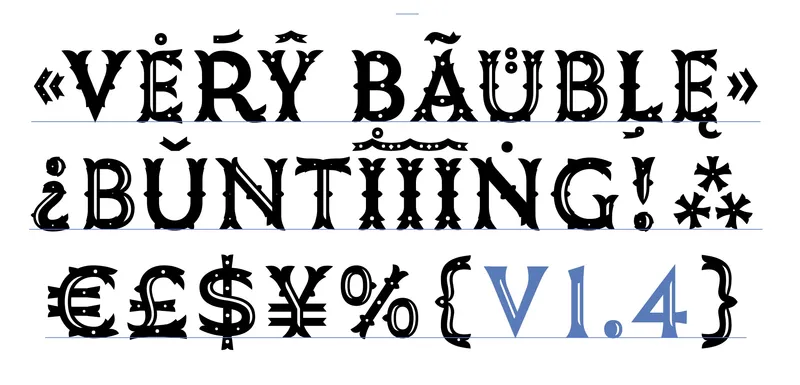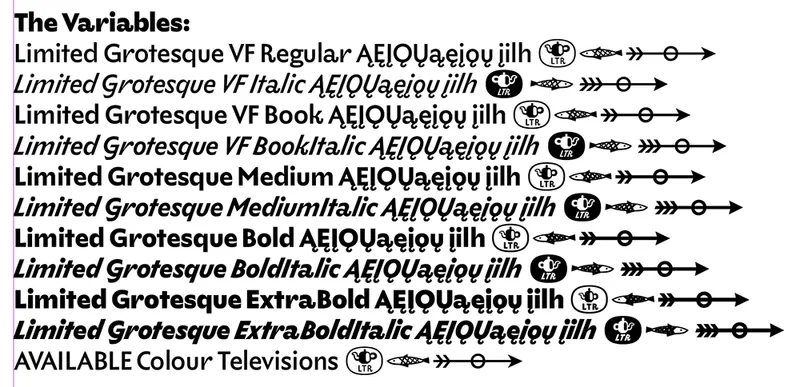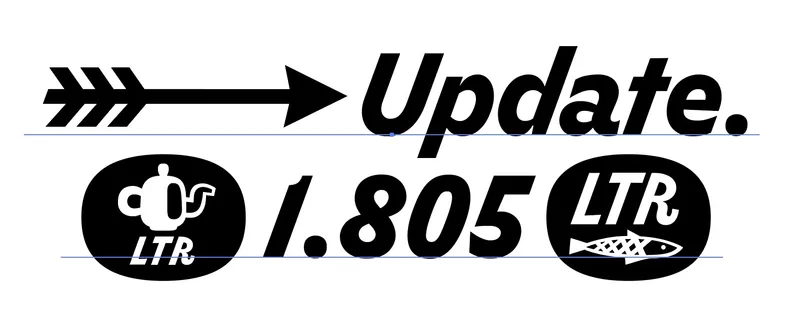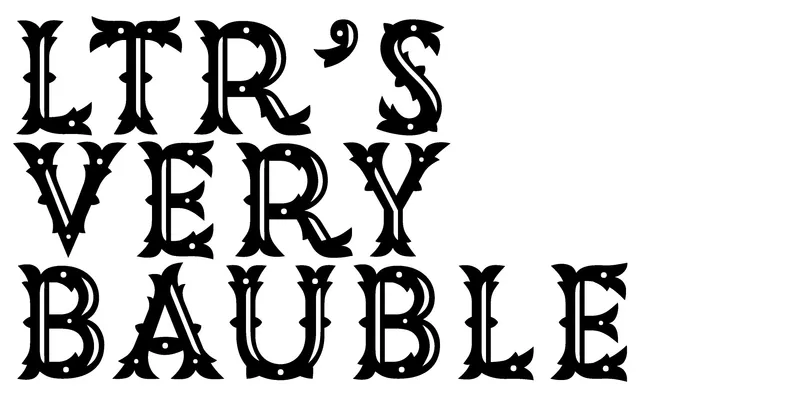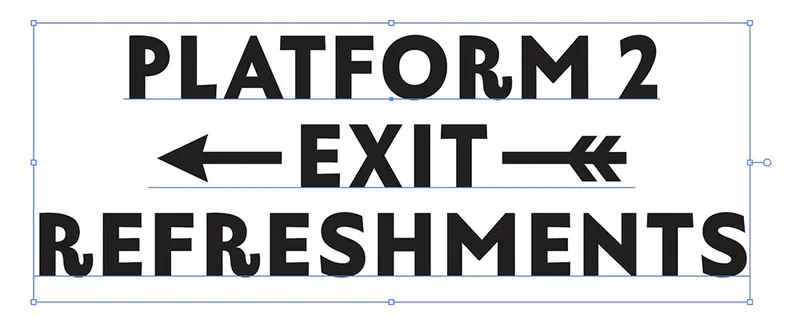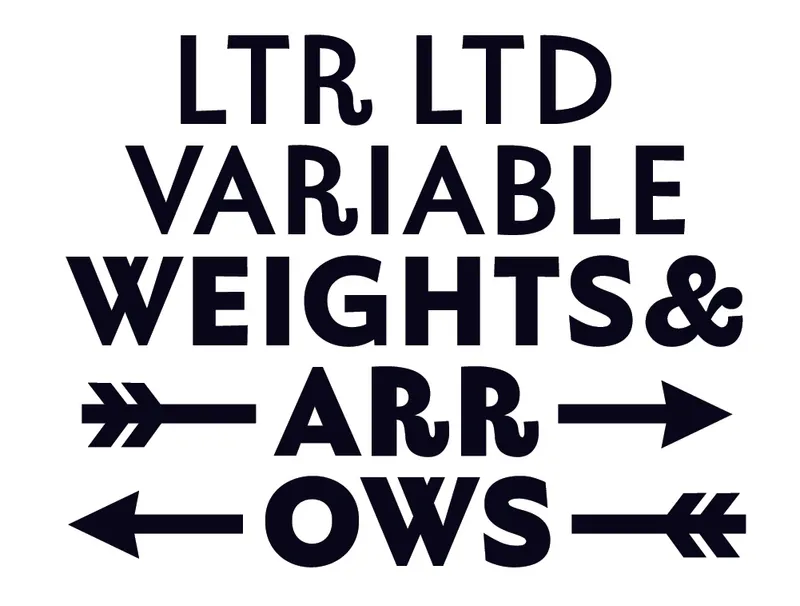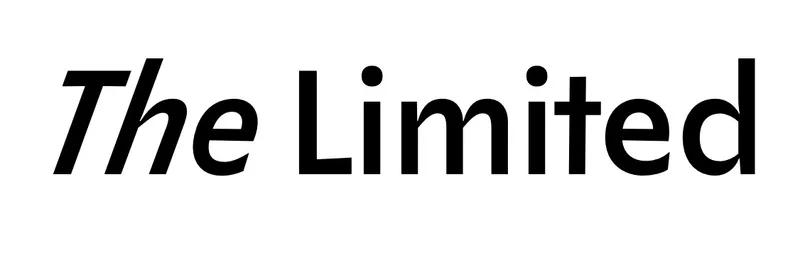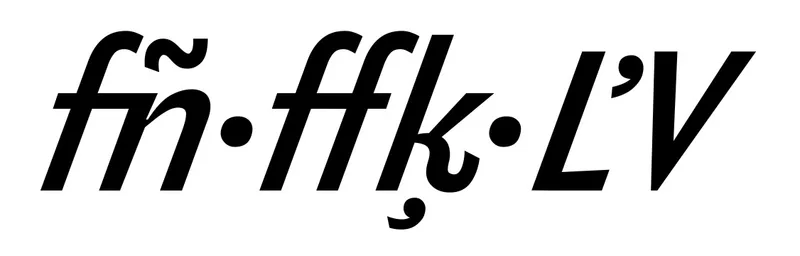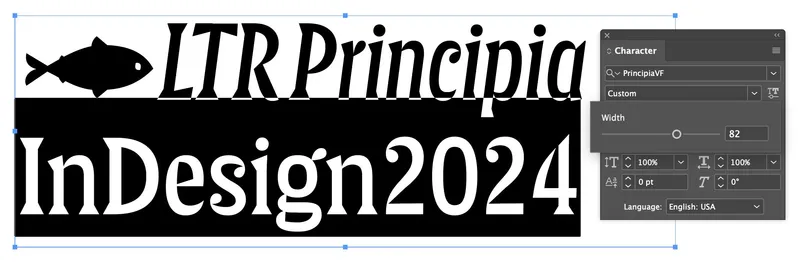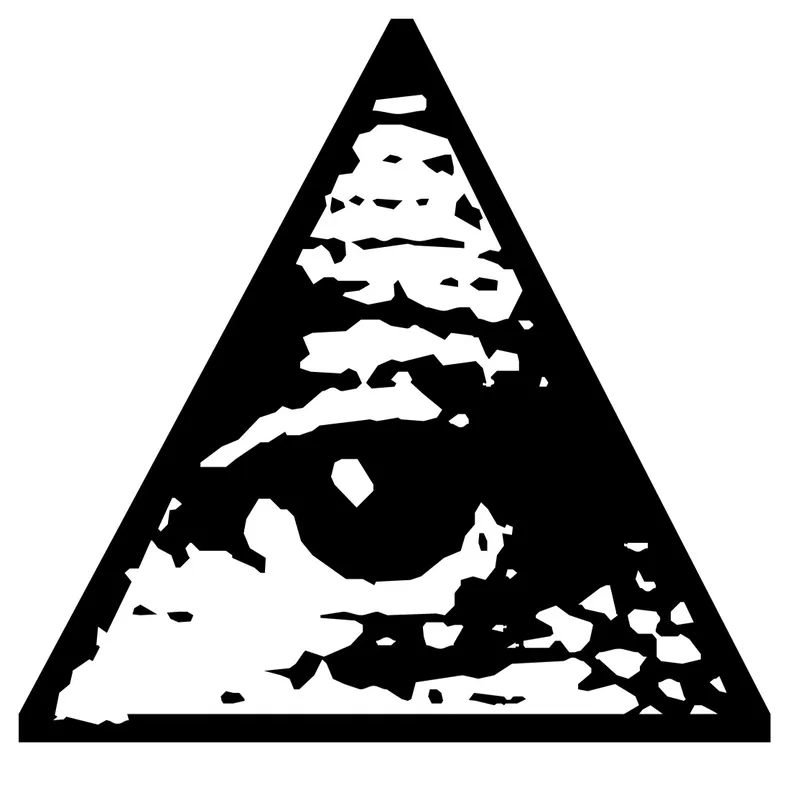
Update: LTR Federal Bureau
Minor repair to the shading in the J circumflex glyph.
Update: LTR NCND® Classic HD Pro
Update: LTR Very Bauble
New variables and new singles. Much extended characterset with many diacritics, some currencies, more punctuation. It's still uppercase only, but it speaks more languages.
Update: LTR Limited Grotesque™
New variables and new singles. Improved ogoneks. Fixed issue with overlaps in OTF exports.
Update: LTR Limited Grotesque™
New variables and new singles. A handful of small fixes: an issue with the dot size in iogonek. Alignment issue in the lowercase h stem. Rightmargins of accented variants of Z.
Update: LTR Very Bauble
Some improvements to unruly pips and thorns. Added missing Pips weight to the OTFs. Added a new LTR logo, accessible under (LTR).
New Release: LTR Very Bauble
A study in transfiguration, this Very Bauble. Slightly odd Sans caps get cut and form distinguished looking inlines. Then the stems split and our Bauble grows thorns and pips and becomes plump and foliate. A Tuscadermy Very Bauble Mondegreen. Caps only, and with a rather limited characterset. It is after all, just a Very Bauble.
Update: LTR Limited Grotesque™ Singles
All weights and styles for LTR Limited Grotesque™ as non-variable OpenTypes. Regular, Book, Medium, Bold and Extra Bold, with eye catching italics. Same OpenType features, alternates, ligatures, etc. as the variables.
Update: LTR Limited Grotesque
This extends LTR Limited with Book, Medium, Bold and Extra Bold for Roman and Italic, released as 2 variable fonts. Updated kerning and metrics in roman and italic, both now at version 1.8. Considerable tweakery on shapes in all styles, reshuffled stylistic sets. Nice set of keyboard accessible arrows.
Update: LTR Limited Grotesque
This introduces an exciting new upright style. Updated kerning in roman and italic, both now at version 1.005. Small tweakery on shapes and spacing in the italic as well. Yes, this design still a lot of care and attention.
Update: LTR Limited Grotesque
This improves some automatic ligature combinations. Unneeded glyphs removed. Some kerning pairs adjusted.
New Release: LTR Limited Grotesque
LTR Limited Grotesque is a low contrast sans serif design with a rather steep angle and a joyful mix of shapes.
Update: LTR NCND
Update: LTR Principia
Update: LTR Federal Reserve Note
Additional end pieces and simplified access through nicely named stylistic sets: Crown, Toffee, Scroll, Oval, Engraved, Lunate, Crescent, Candy, Fish and Hotdog.
New Release: LTR Federal Bureau
A new vertical bevel enables a single-layer interpretation of the shaded LTR Federal design.
Updates: LTR Principia Variables
Updates: LTR Federal Collection
Added notdef. Changed /currency. Renamed /apple to /fisheye 0x25C9 to make it accessible. Clearly this is not a fisheye, but there is no unicode for all-seeing-omni-thing. Improved glyph order. Increased the ascender values. Improved selected name table entries for the whole collection. Federal Regular and Federal Reserve Note can now be licensed separately.
Updates: LTR Principia Collection
Default numerals are now proportional old style. Lining numerals (lnum) are also proportional. Tabular versions available at tnum. Small tweaks to /two, /yen, /Y, /thinspace. Improved acutes over ij and IJ. Access Alternates feature added.
New Release: LTR Slab Extended
Nice chunky extended slab serif with a bit of history. New release with extended characterset, some new arrows. Variable font with weight axis.